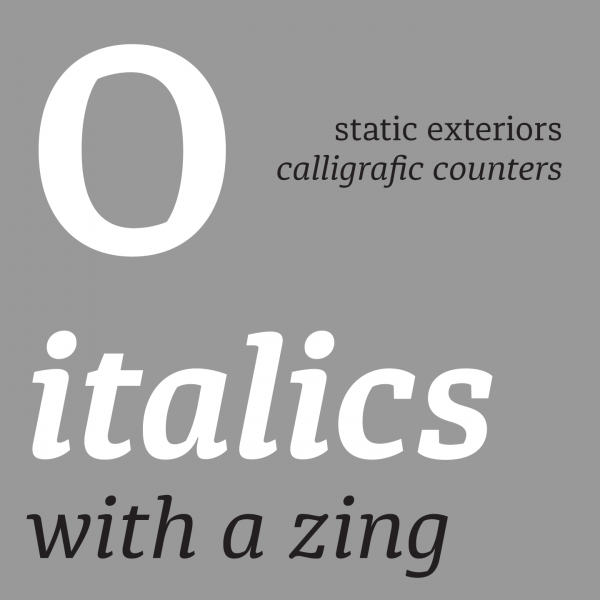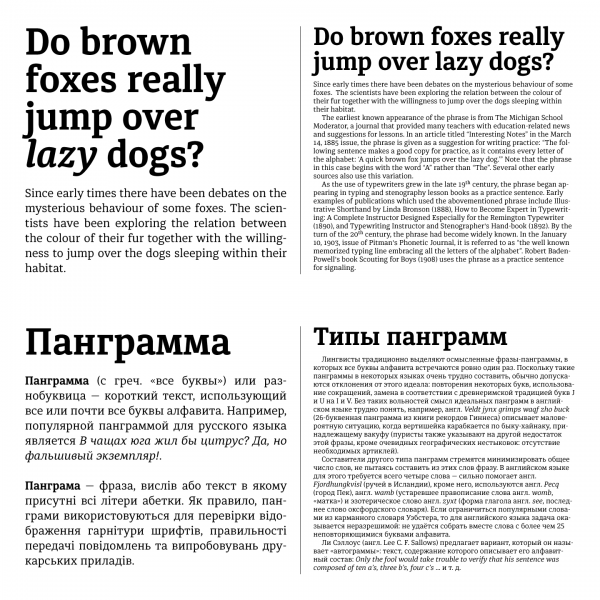
Diaria Pro, a font family for newspapers with 6 weights plus corresponding Italics.
Andriy Konstantynov originally started to work on the Diaria typeface for a Master in Advanced Typography at EINA, Centre Universitari de Disseny i Art de Barcelona. Later he extended the typeface into a full font family. The Diaria Pro font family consists of 6 weights plus corresponding italics. The extensive family is equipped with a character set that supports latin and cyrillic letters. In addition, it includes lots of OpenType features such as Ligatures, Small Caps, Digits, Fractions, Ordinals, and Punctuation.
The Diaria Pro font family is a serif typeface with low-contrast. It was primarily designed for the use as text font in newspapers or magazines. Its good readability results from a large x-height and static exteriors. Calligrafic counters as well as dynamic serifs add a distinctive touch to this typeface.